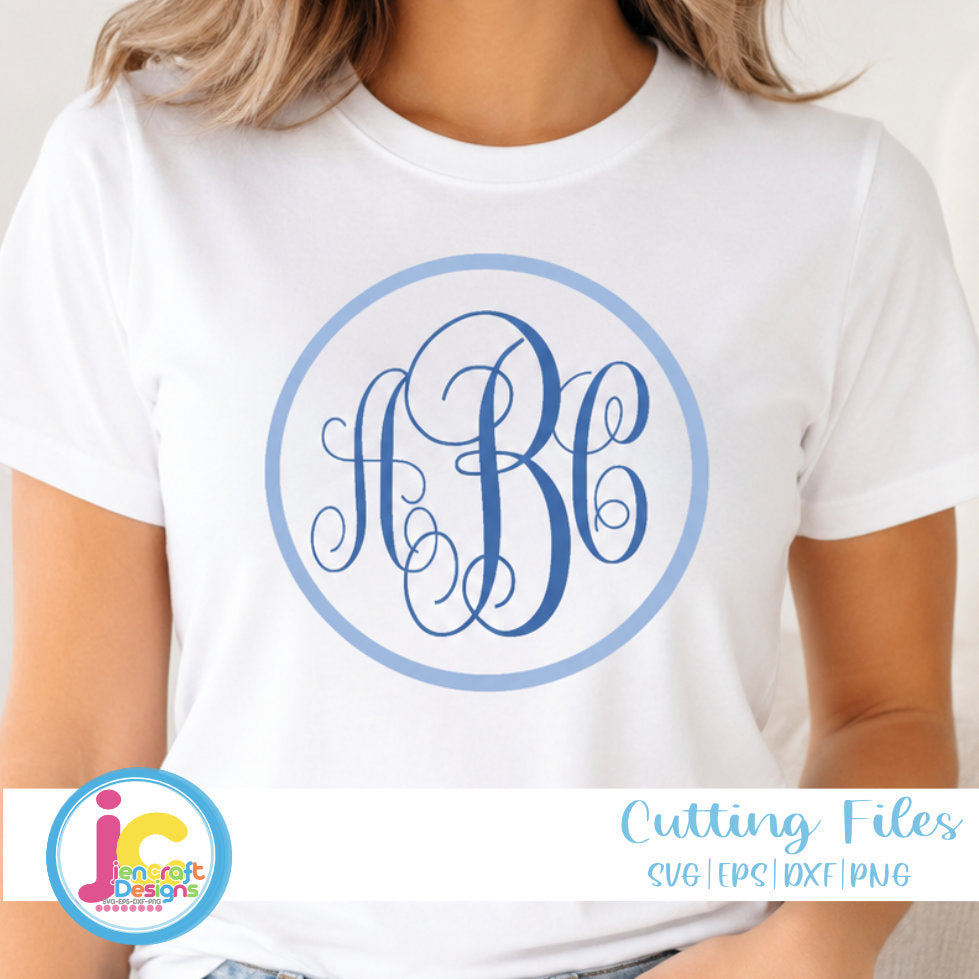
Curly Monogram Letters SVG | Round Alphabet Cut File SVG DXF EPS PNG
Add elegant curly flair to your monogram projects with this Curly Monogram Letters SVG — a full A-Z round alphabet cut file set perfect for personalized shirts, tote bags, tumblers, home decor, and gifts. Clean-cutting, layered files work beautifully with Cricut, Silhouette, and more. Available in SVG, EPS, DXF, and PNG formats.